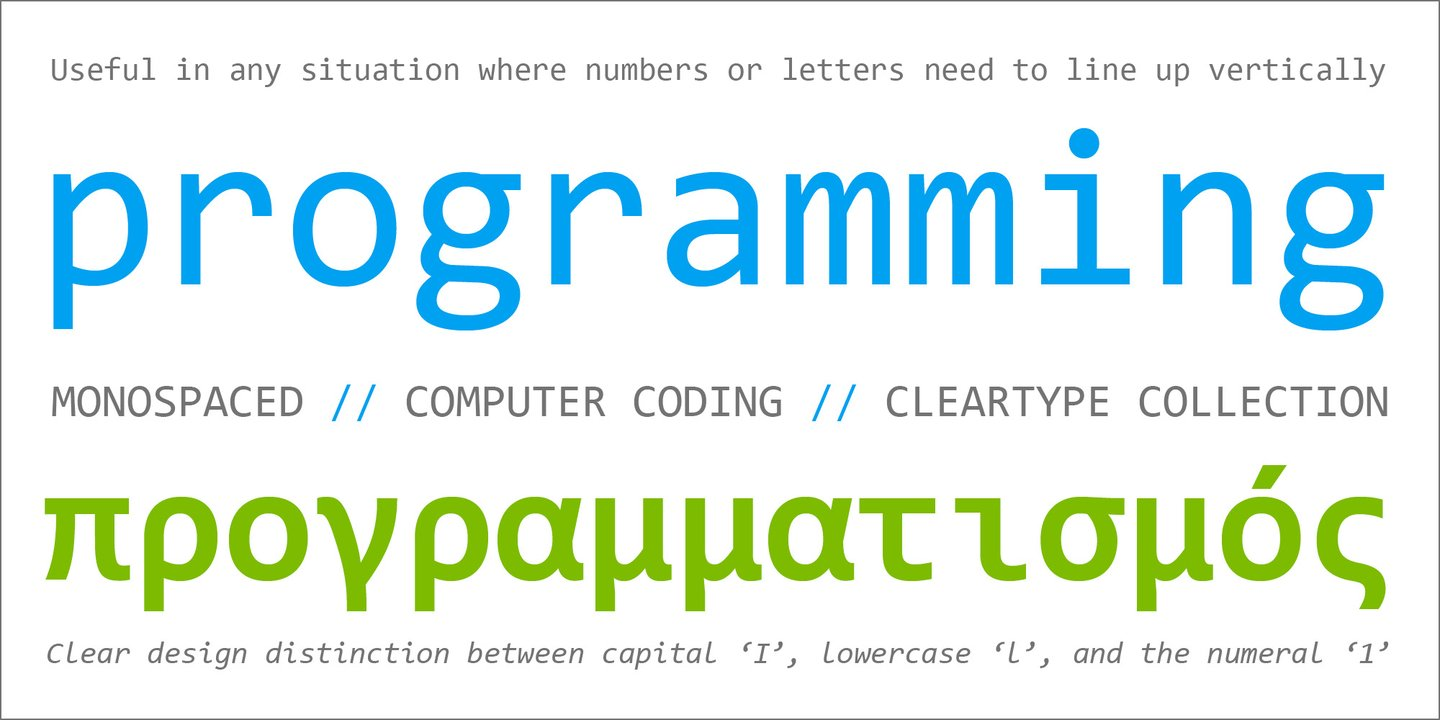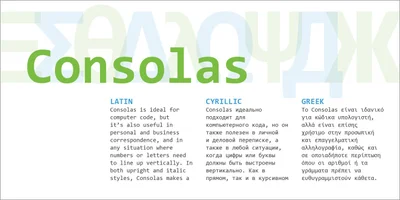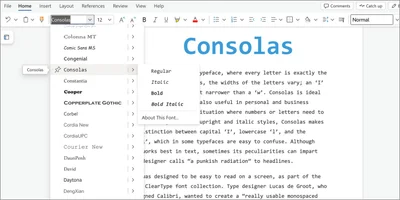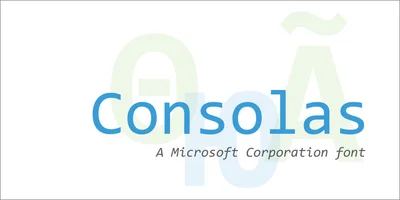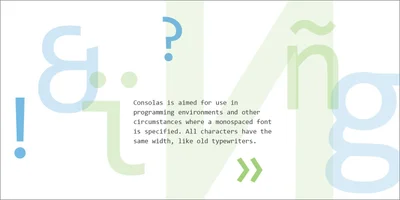
Consolas vs Operator Mono
Consolas and Operator Mono are both mono typefaces sharing a monospace foundation. Where Consolas leans tech, Operator Mono brings script, luxurious. Compare which suits your Code Editors project.
| Feature | Consolas | Operator Mono |
| Classification | mono | mono |
| Language Support | latin, latin-extended, cyrillic, greek | latin, latin-extended |
| Source | Microsoft | Hoefler&Co |
Recommended: Consolas
- tech design character
- Suited for Terminal and Developer Tools
- From microsoft
Consider: Operator Mono
- script, luxurious design character
- Suited for Developer Branding and Presentations
- From hoeflerco